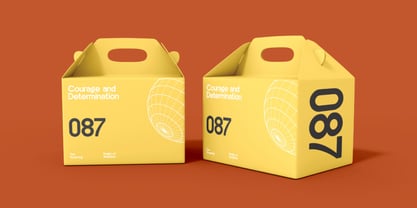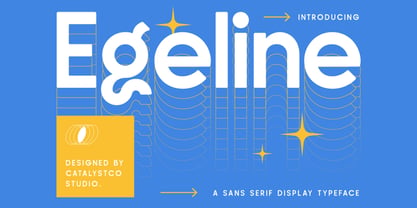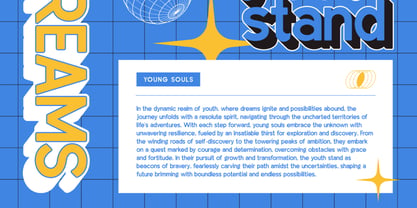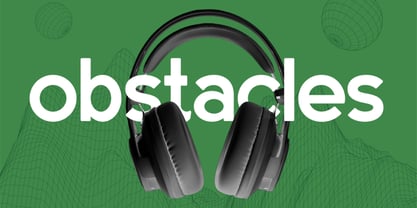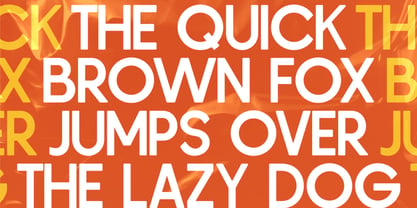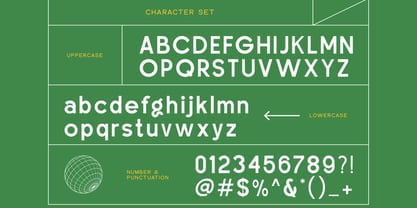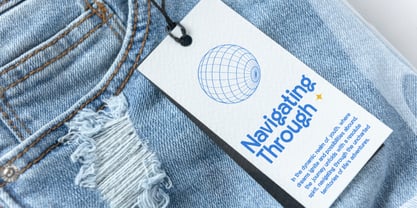
Egeline
Egeline is a modern sans serif display font that fuses geometric simplicity with futuristic flair. Designed for clean readability and stylish impact, its distinctive letterforms and smooth terminals create a confident, cutting-edge aesthetic. The font includes uppercase, lowercase, numerals, and punctuation, making it ideal for branding, logos, packaging, tech visuals, editorial headlines, and web design. Egeline is perfect for forward-thinking branding, UI/UX interfaces, web design, modern editorial layouts, packaging for digital products, fashion labels, creative portfolios, and high-impact logo design.